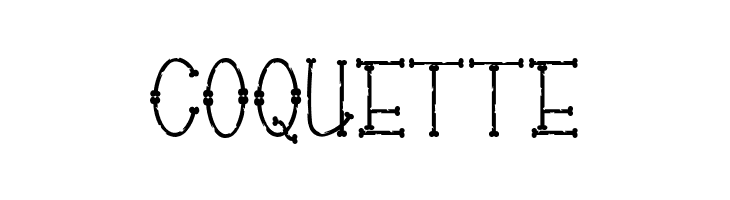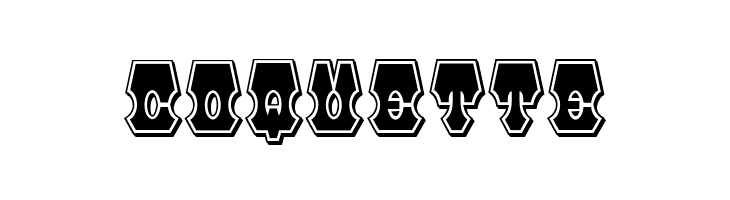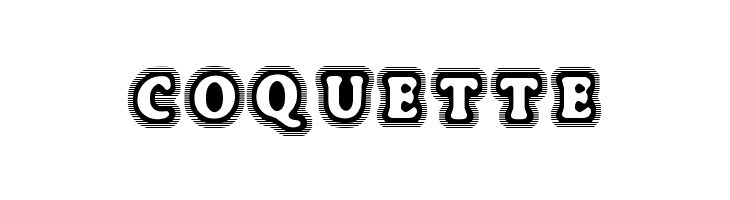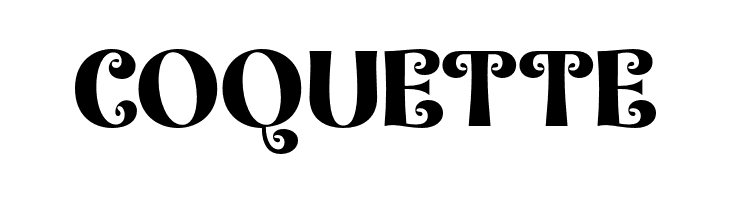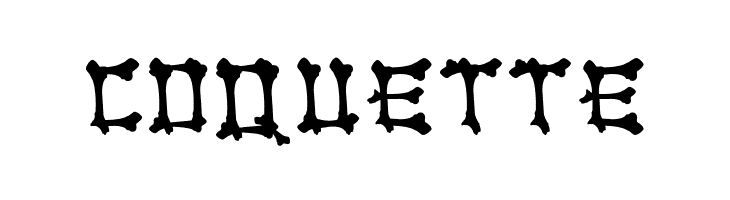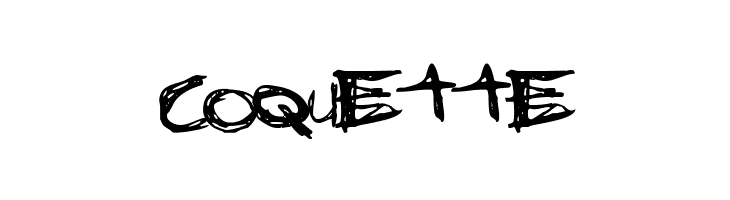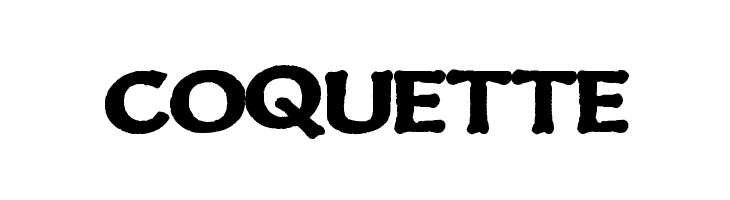
A bold, decorative font with a striped, three-dimensional effect.
A bold, hand-drawn font with rugged, uneven strokes and a vintage feel.
A bold, decorative font with playful, curly serifs and a whimsical style.
A bold, decorative font with a skeletal motif, perfect for dramatic themes.
An artistic font combining skeletal elements with roses for a bold, decorative look.
A raw, edgy font with jagged strokes and a distressed, graffiti-like appearance.
A playful, bone-themed font with a quirky, skeletal design.
A playful, quirky handwritten font with thin, uneven strokes.